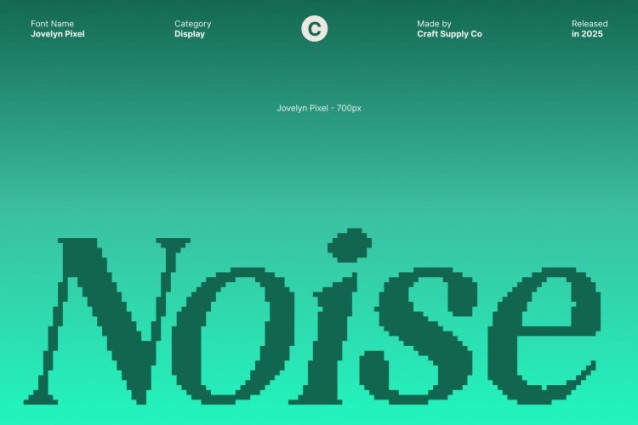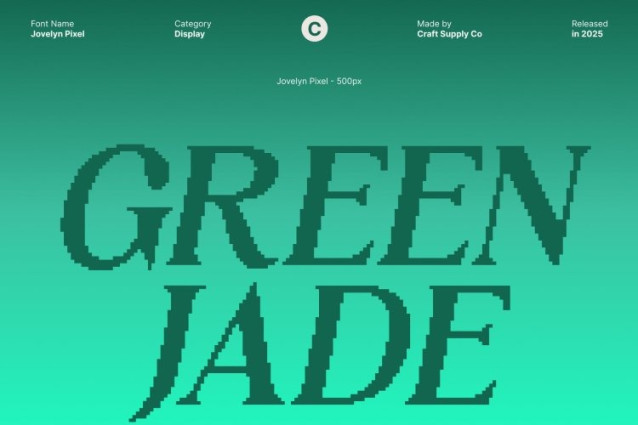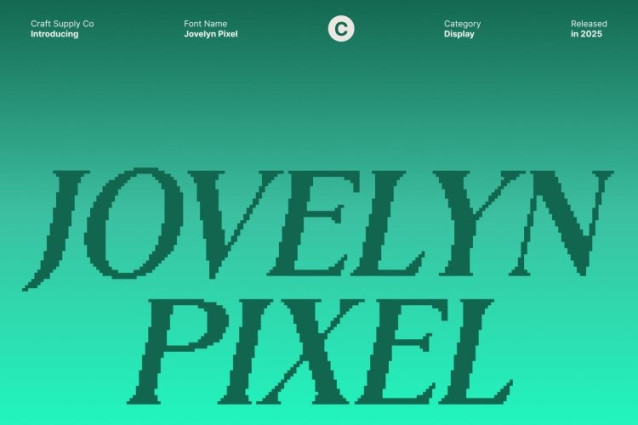
Jovelyn Pixel Font
Jovelyn Pixel Font This pixel retro serif font showcases charming 8-bit digital shapes that instantly evoke the nostalgic feel of early computer graphics and vintage gaming. Its serif structure adds a touch of classic elegance, creating a unique blend of retro technology and timeless typography. Each letter carries a playful pixelated texture that enhances its distinctive character.
Retro Tech Vibes with Creative Warmth
Designed to merge digital nostalgia with artistic expression, this typeface brings warmth and personality to every layout. The pixel style gives it a bold, eye-catching rhythm, while the serif details soften the overall feel, balancing retro-tech aesthetics with a more inviting, creative tone.
Ideal for Posters, Games, and Branding
Perfect for game interfaces, retro-themed posters, digital artwork, branding projects, and nostalgic visual identities, this font shines wherever you need a memorable and expressive display typeface. Its strong pixel look makes it ideal for titles, logos, and headings that aim to stand out with retro flair.
A Vibrant Fusion of Nostalgia and Modern Creativity
By combining the charm of classic pixels with the elegance of serif design, this typeface creates a visually striking and stylistically rich experience. It’s the perfect choice for designers who want to celebrate retro energy while maintaining a warm, artistic, and modern feel in their creations.